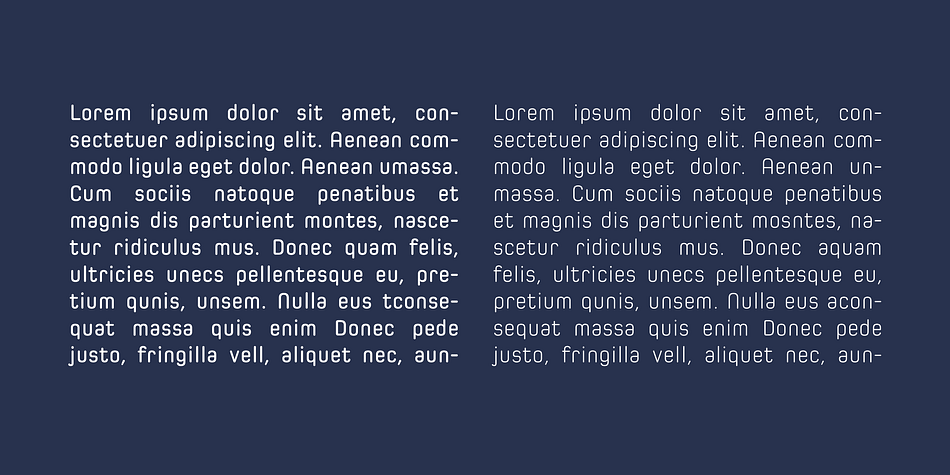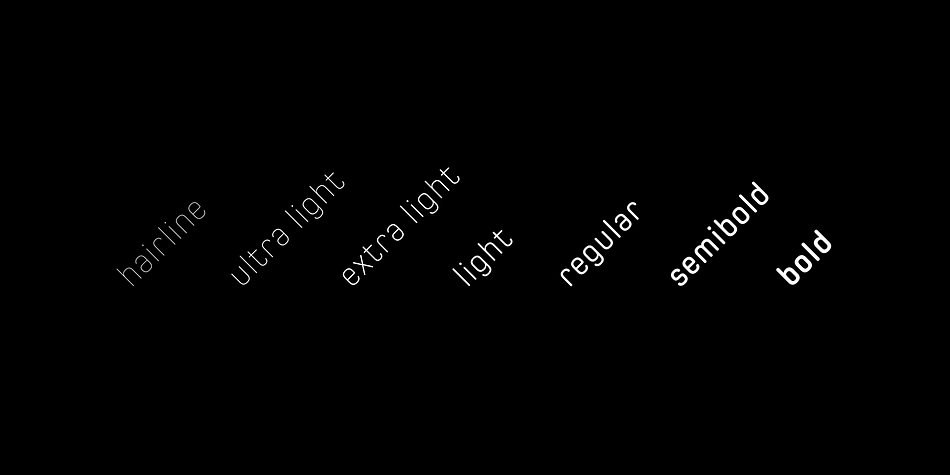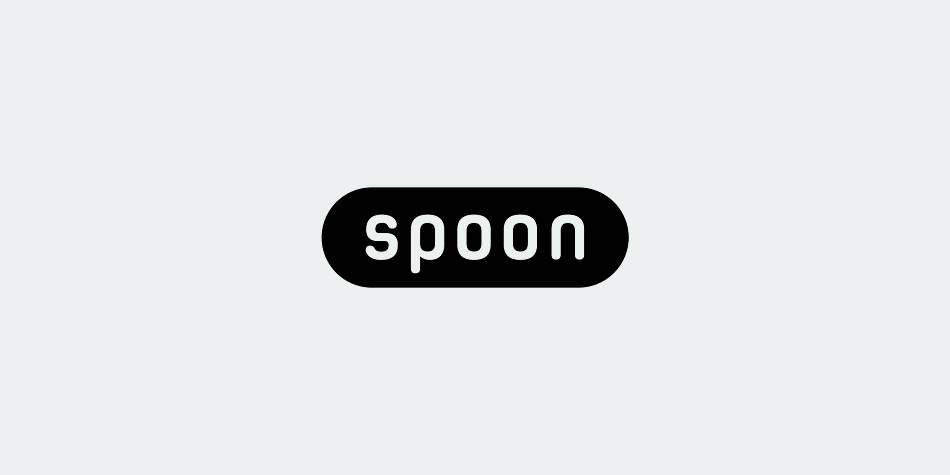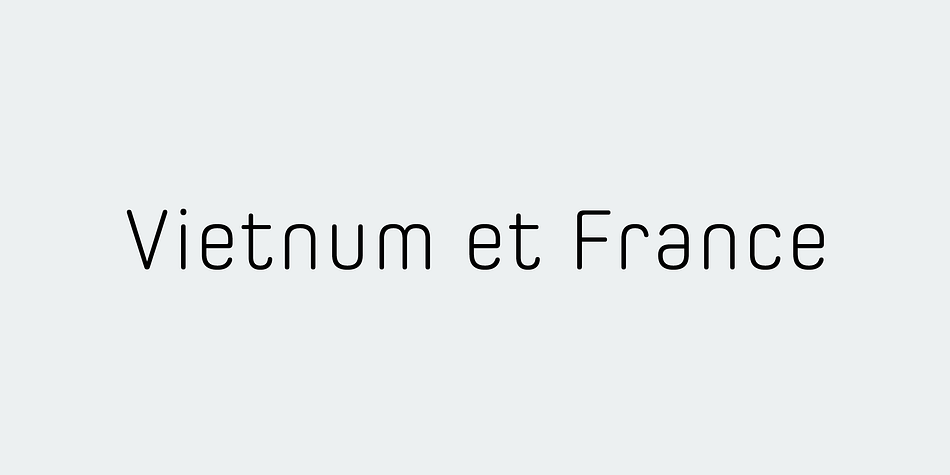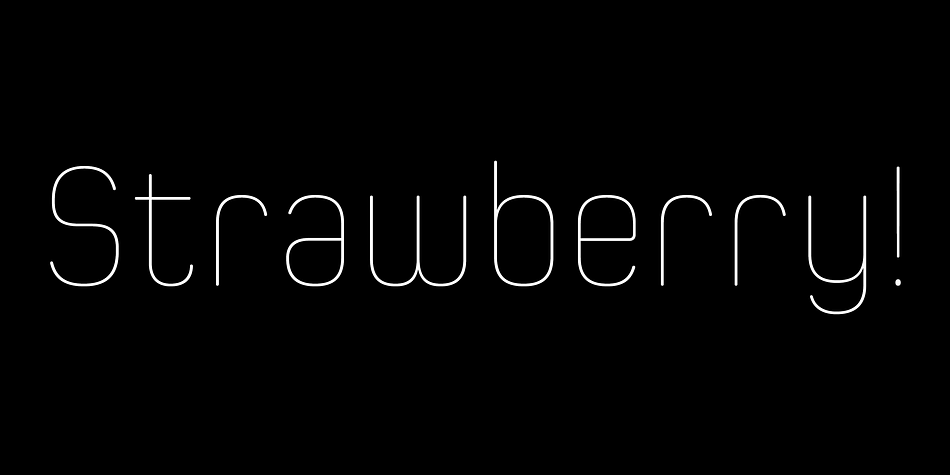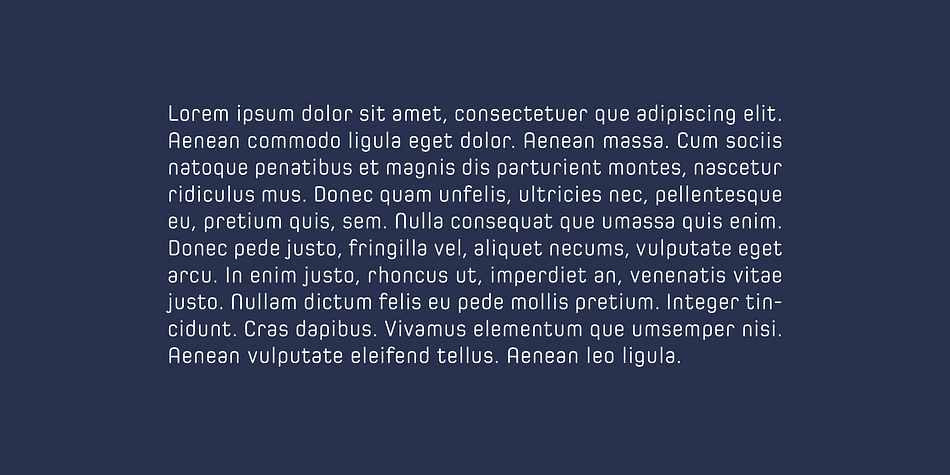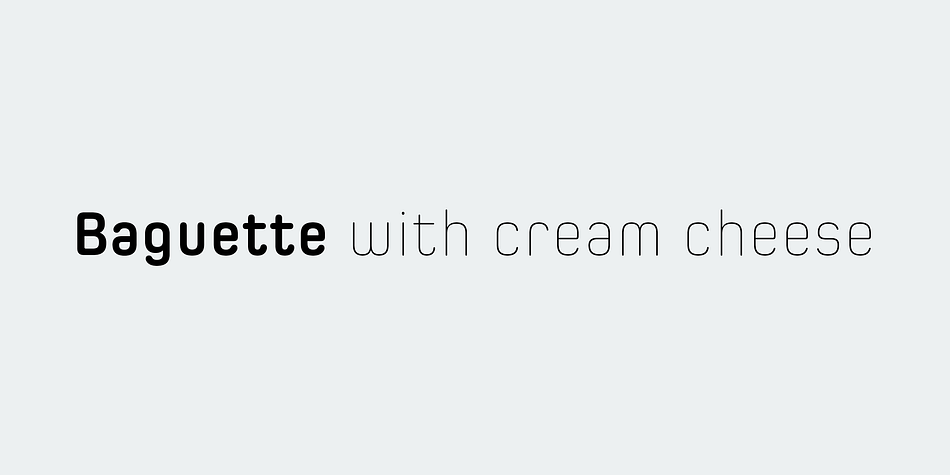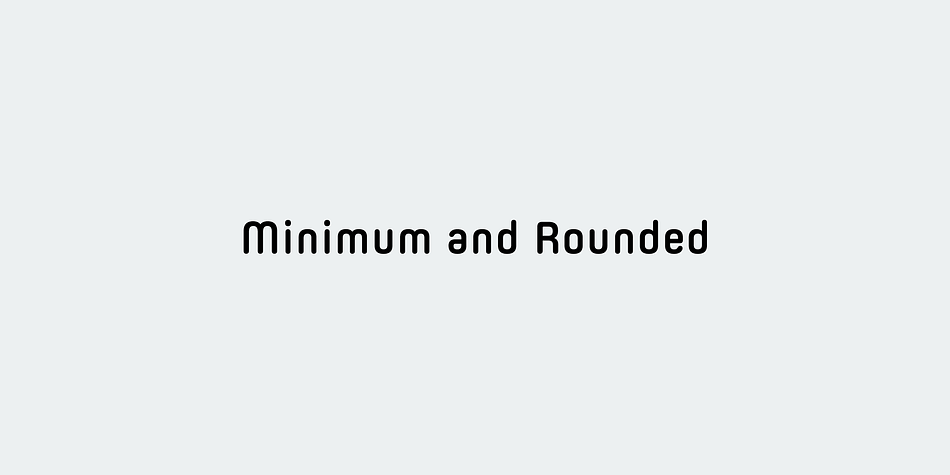
Spoon is a sans serif font family. This typeface has fourteen styles and was published by Dharma Type.
Spoon is a fresh and contemporary sans-serif that can be used in wide range of project.
Its skeleton of letterform is geometrically-based and minimal but the body was designed with a touch of humanistic outlines as though they were handwritten. This not only make the font clean, legible and functional, but also make it possible to give natural, friendly and soft impressions. Spoon comes in seven weights with matching italics and includes diacritics for most European in each weight.